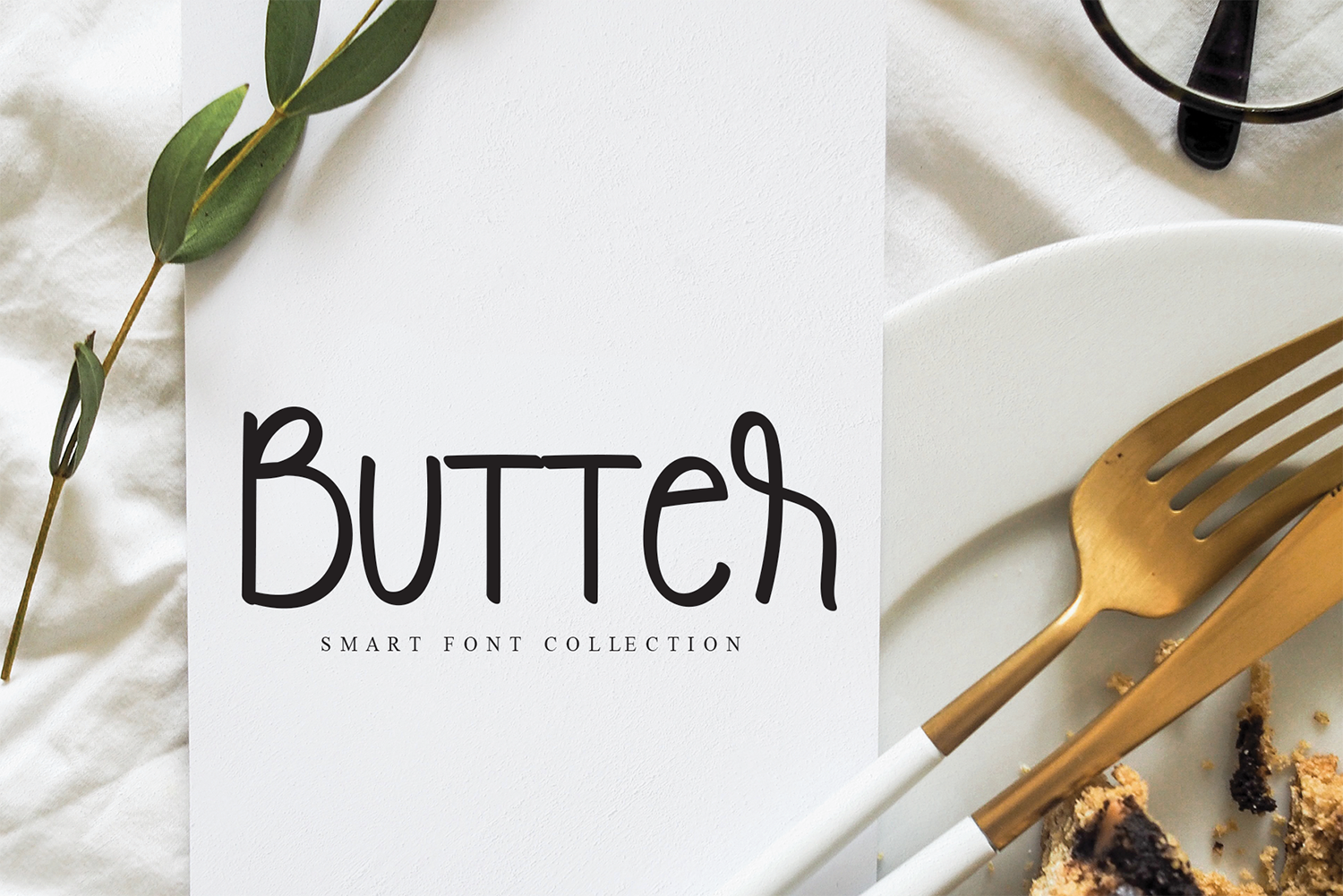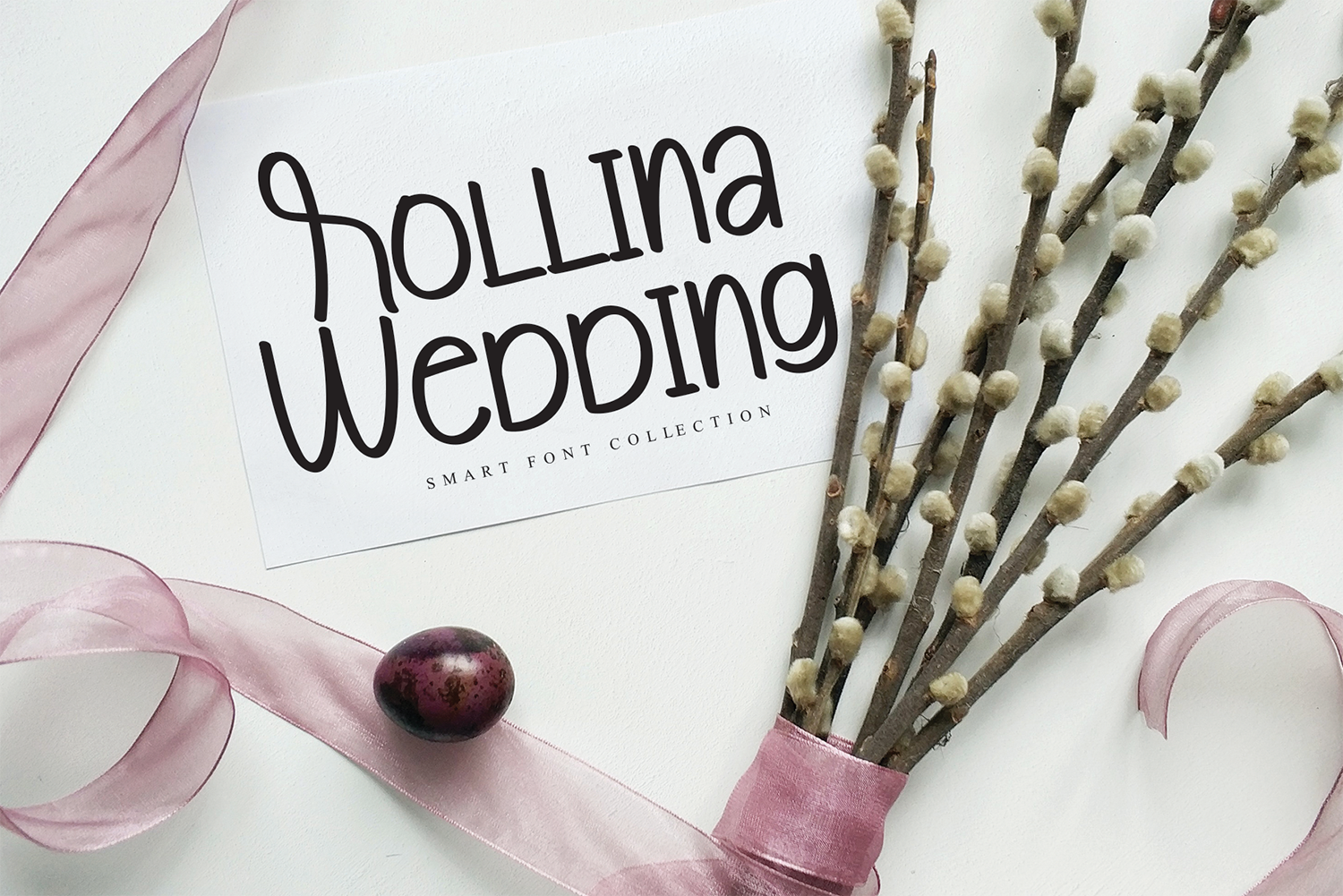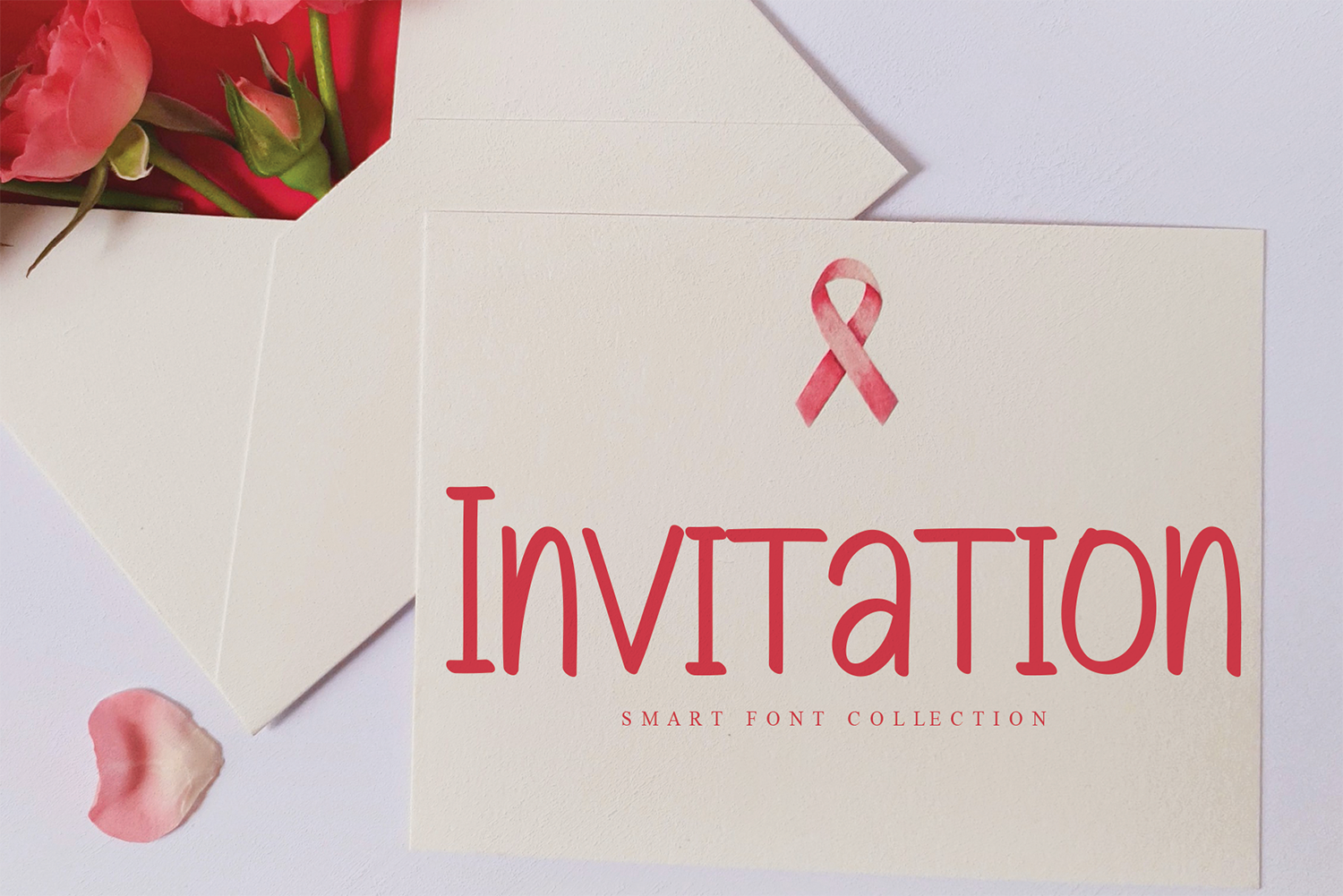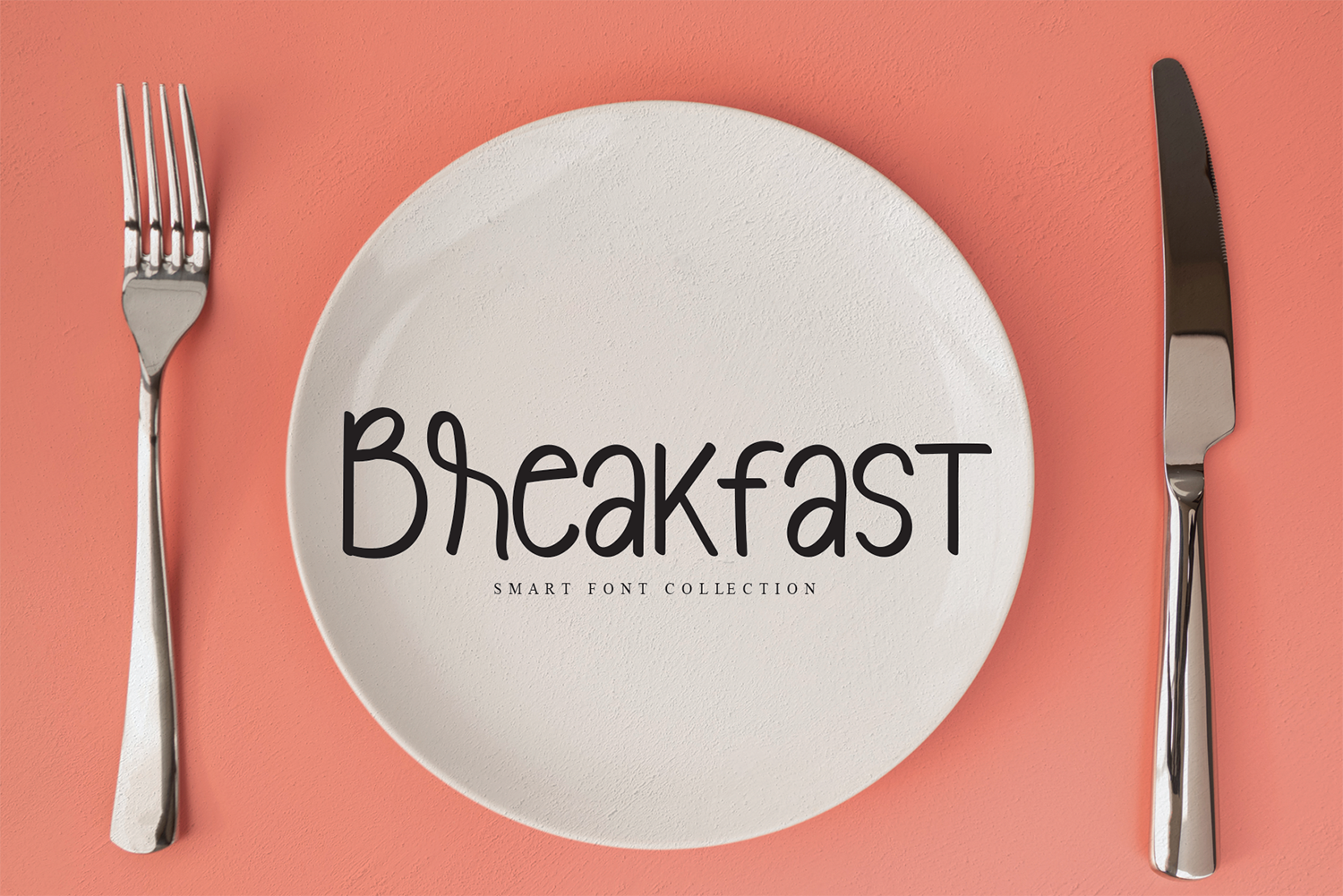
Remarkable Free Font
Remarkable Free Font embodies an endearing handwritten font. With its charming and vibrant style, this font becomes an excellent option for adding a touch of radiance to your designs. This free typeface was designed by a talentedΒ Scratchones Creative. If you like it don’t forget to check out the full version.